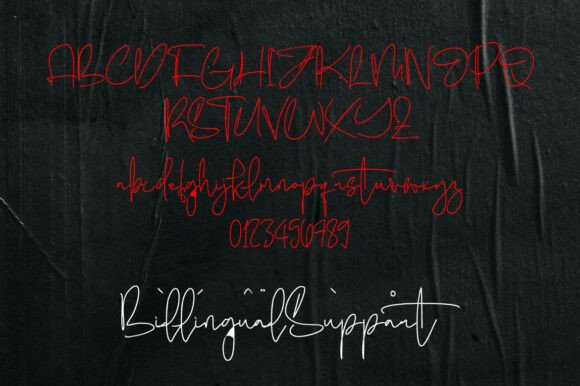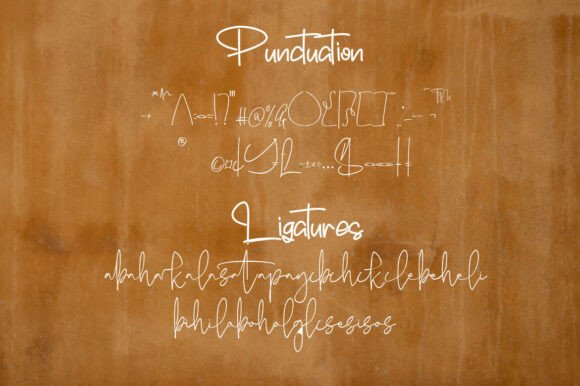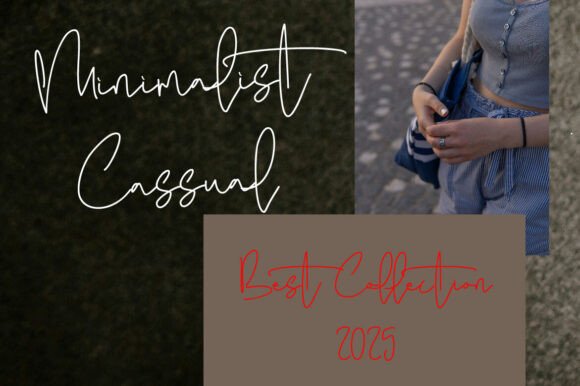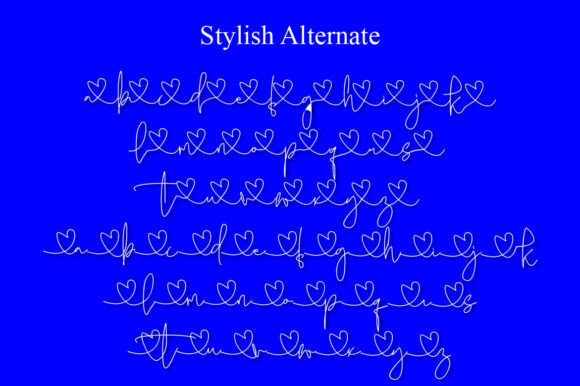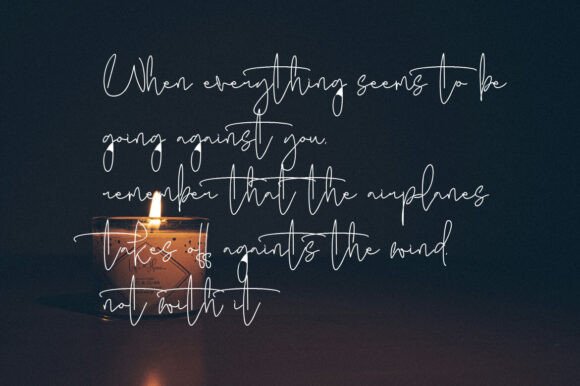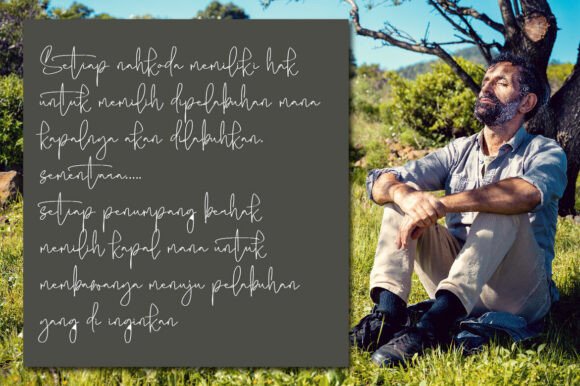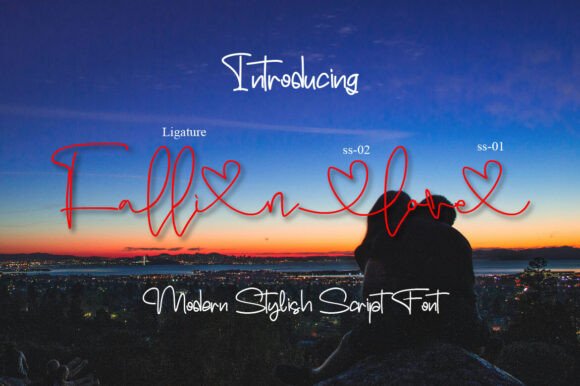
Unveiling the Spectacular ‘Fall in Love’ Font: A Masterpiece of Elegance and Charm
In the world of typography, few fonts manage to capture the essence of human emotion and personal connection as effortlessly as the ‘Fall in Love’ font. This beautifully crafted typeface is designed to echo the charm of handwritten notes, bringing a touch of warmth and intimacy to any project it’s used in. With its natural and stylish ligatures, the ‘Fall in Love’ font is not just a collection of characters; it’s a means of expression, a way to convey feelings and thoughts in a visually appealing and personal manner.
The Art of Ligatures: Enhancing Readability and Aesthetic
One of the standout features of the ‘Fall in Love’ font is its use of ligatures. These are special connections between characters that not only enhance the readability of the text but also contribute to its overall aesthetic appeal. The harmonious linking of characters in this font reflects the common artistry of human handwriting, making it feel more organic and less mechanical. This attention to detail ensures that the text doesn’t just convey information but does so with elegance and grace.
Simplicity Meets Sophistication
While the ‘Fall in Love’ font exudes a tasteful aesthetic, it does so without sacrificing simplicity. This balance is crucial for designers and crafters who are looking for a font that can add a touch of sophistication to their projects without overwhelming them. Whether it’s used for logotypes, correspondence, bespoke invitations, gourmet menus, or endearing postcards, this font brings a level of refinement and class that is hard to achieve with more generic typefaces.
Ideal for a Variety of Projects
The versatility of the ‘Fall in Love’ font makes it an excellent choice for a wide range of applications. Here are a few ideas where this font truly shines:
• Logotypes: For businesses looking to establish a personal and elegant brand identity, the ‘Fall in Love’ font can be a perfect fit.
• Correspondence: Adding a touch of personal charm to letters and emails, making them stand out in a digital age.
• Bespoke Invitations: Perfect for weddings, parties, and other special occasions where a personal touch is desired.
• Gourmet Menus: Elevating the dining experience with a touch of elegance and sophistication.
• Postcards: Creating endearing and personal messages for loved ones.
Telling Your Story with Style
With each curve and connection, the ‘Fall in Love’ Font allows you to narrate your story in a visually appealing and personal manner. It’s not just about conveying information; it’s about doing so with style and emotion. This font invites you to bring a piece of yourself into your work, making it more than just a project – it’s a reflection of your personality and creativity.
The ‘Fall in Love’ font is a spectacular addition to the world of typography, offering a unique blend of elegance, charm, and personal connection. Its natural and stylish ligatures, combined with its simplicity and sophistication, make it an ideal choice for designers and crafters looking to add a touch of warmth and intimacy to their projects. Whether you’re creating logotypes, correspondence, bespoke invitations, gourmet menus, or endearing postcards, this font provides a beautiful way to tell your story with style.
In a world where digital communication often lacks a personal touch, the ‘Fall in Love’ font stands out as a beacon of elegance and emotion. It’s a reminder that even in the digital age, there’s still room for handcrafted charm and personal connection. So, if you’re looking for a font that can help you convey your message with a little more heart, a little more style, and a lot more personality, then ‘Fall in Love’ is the perfect choice.